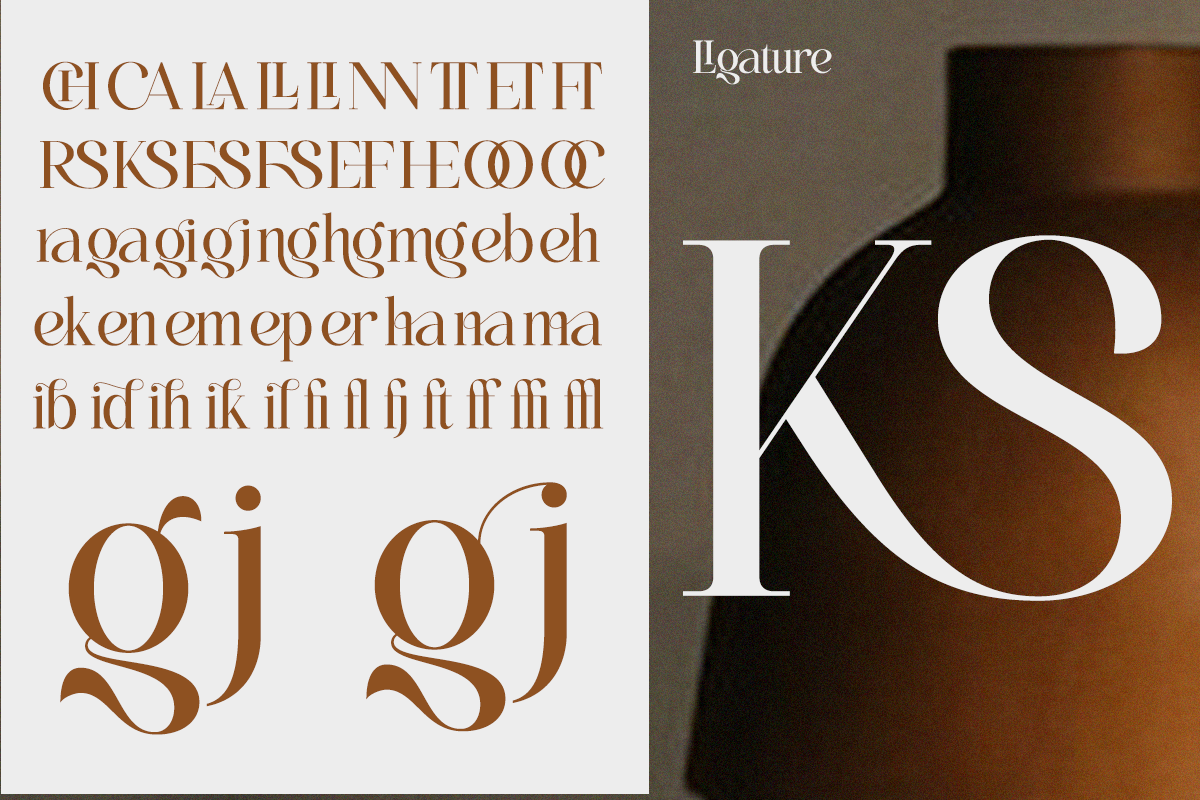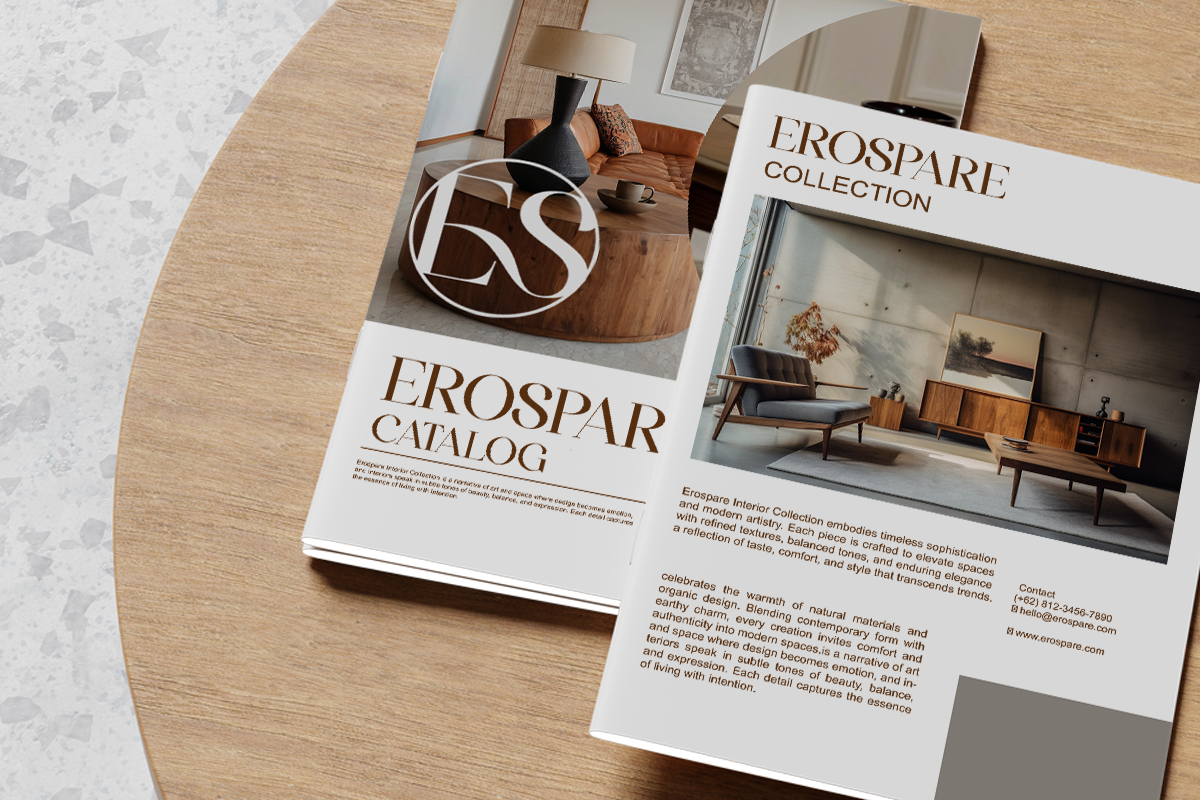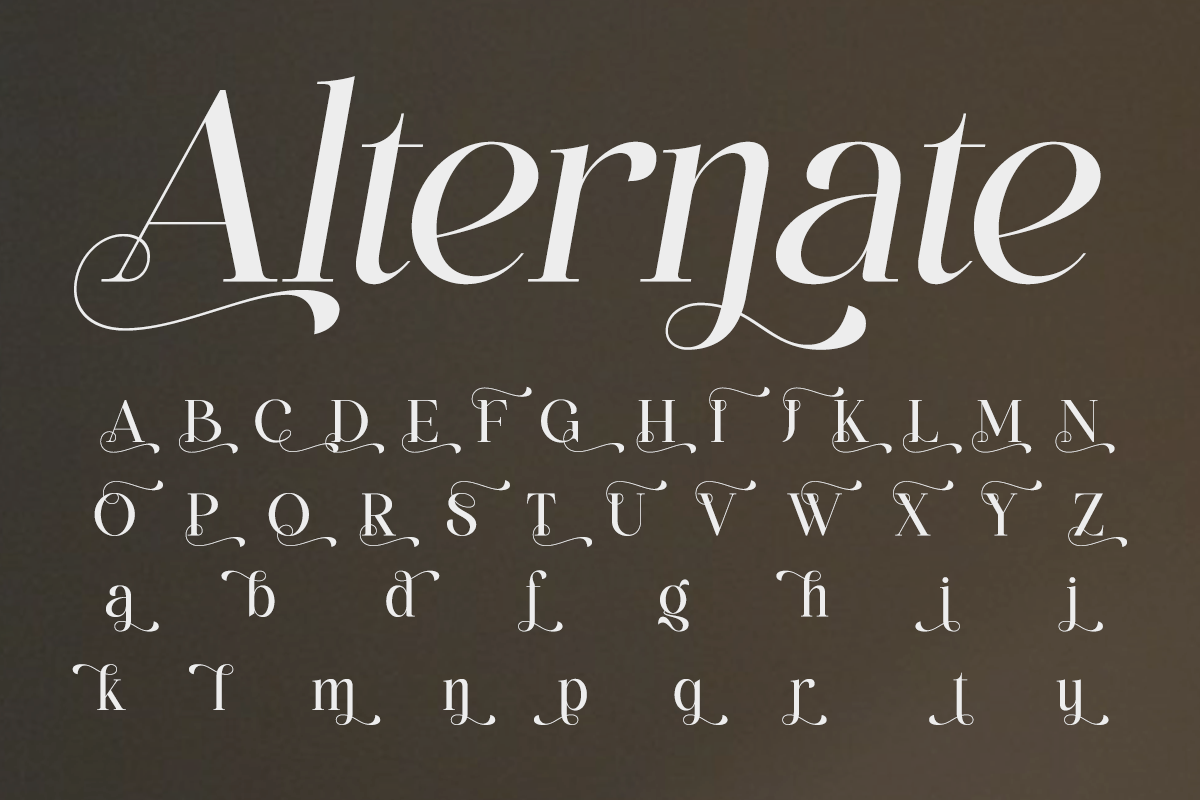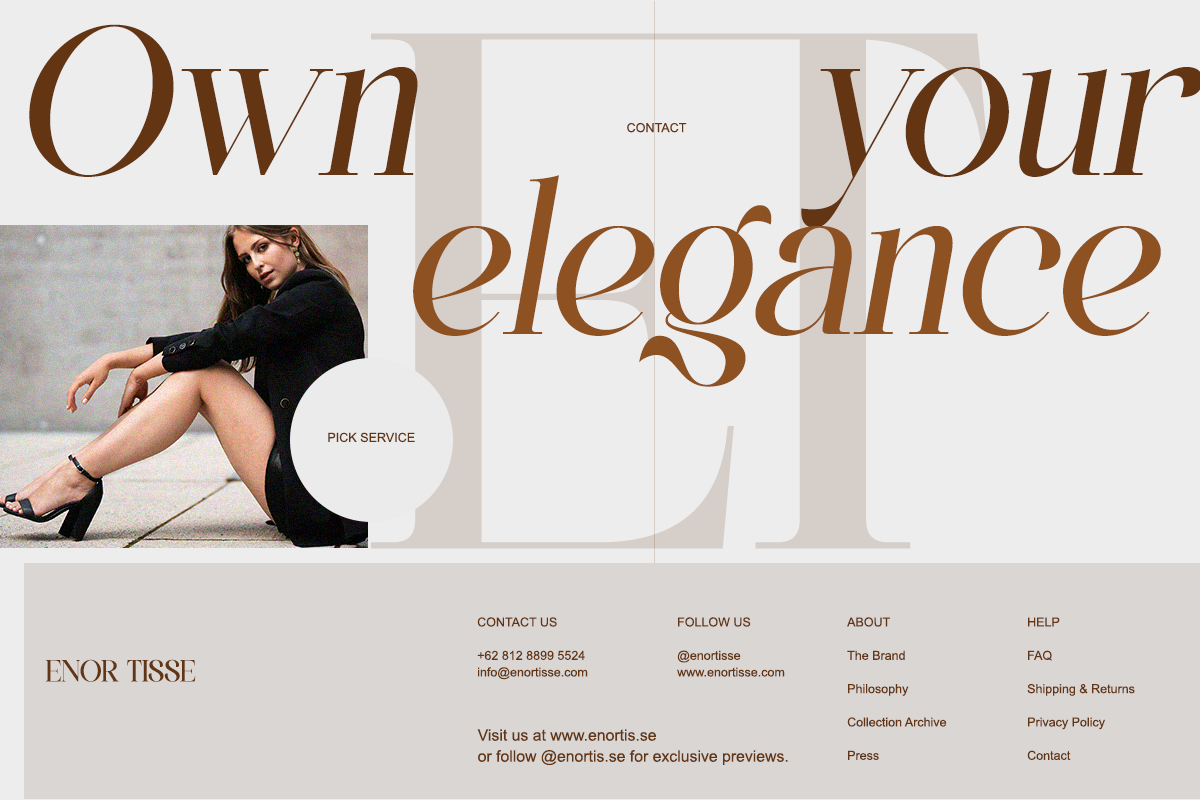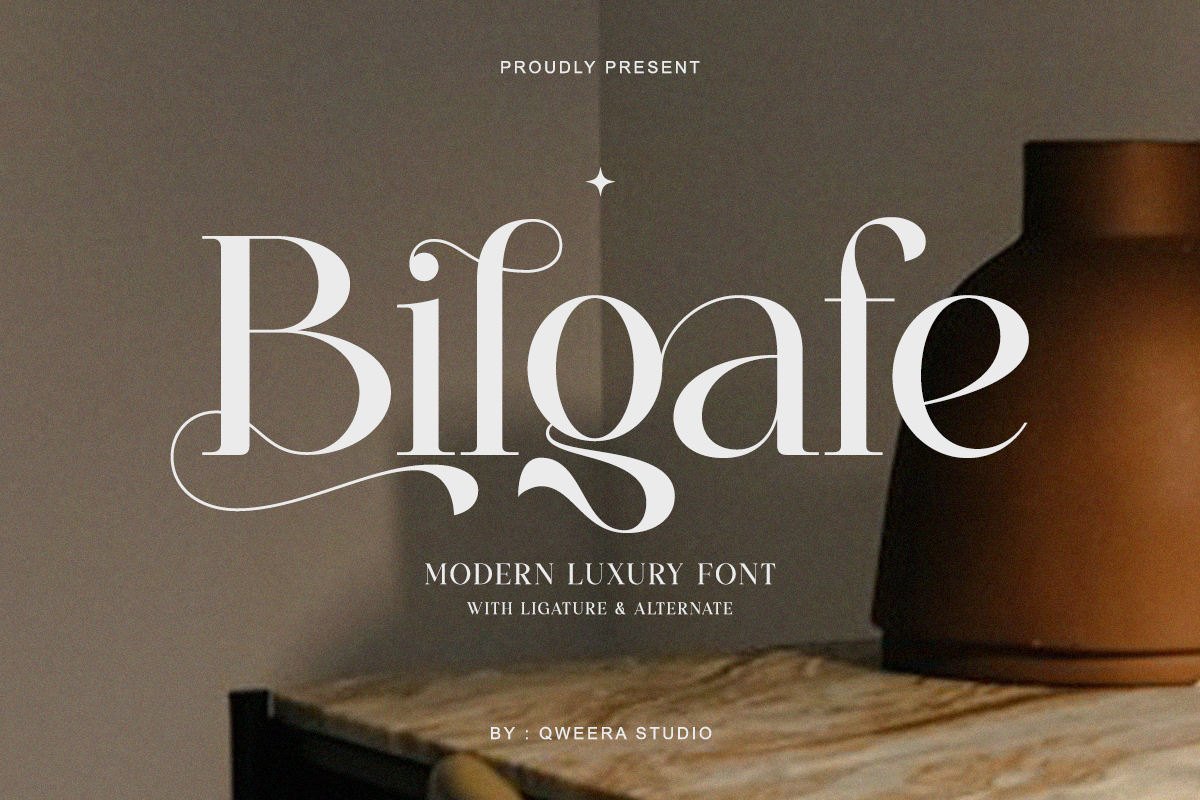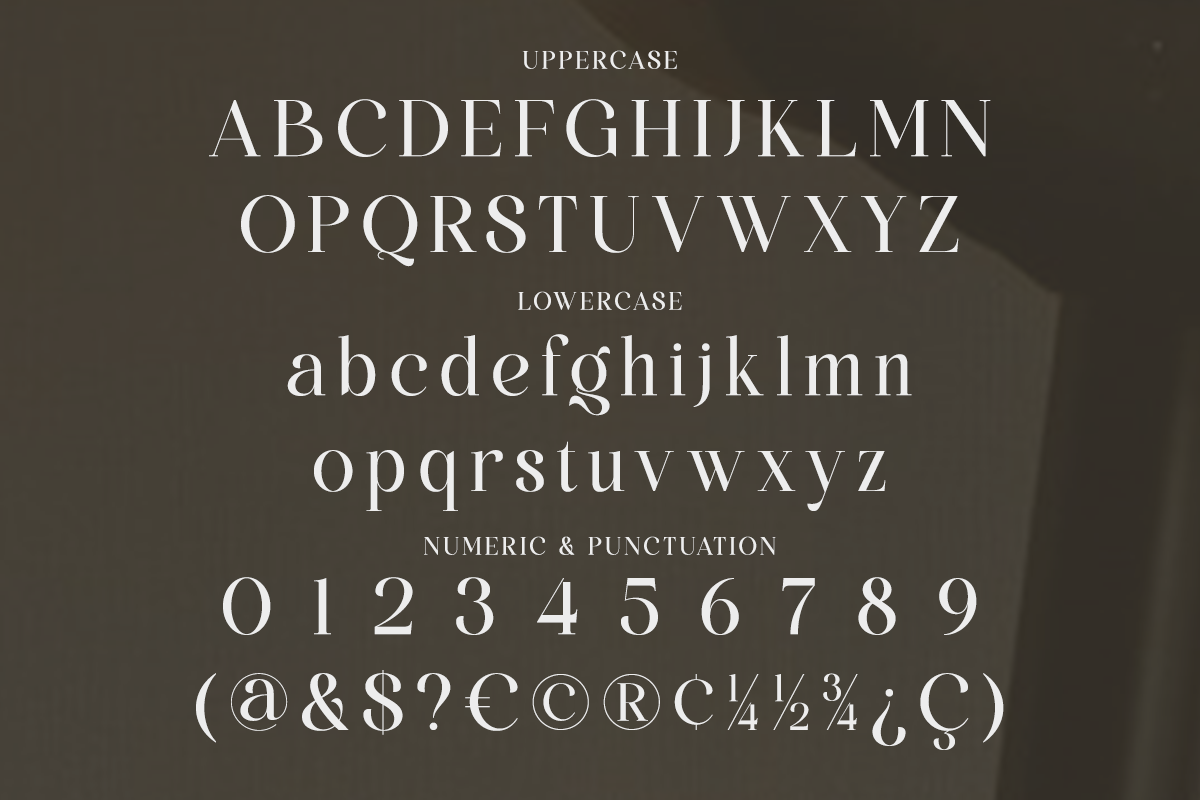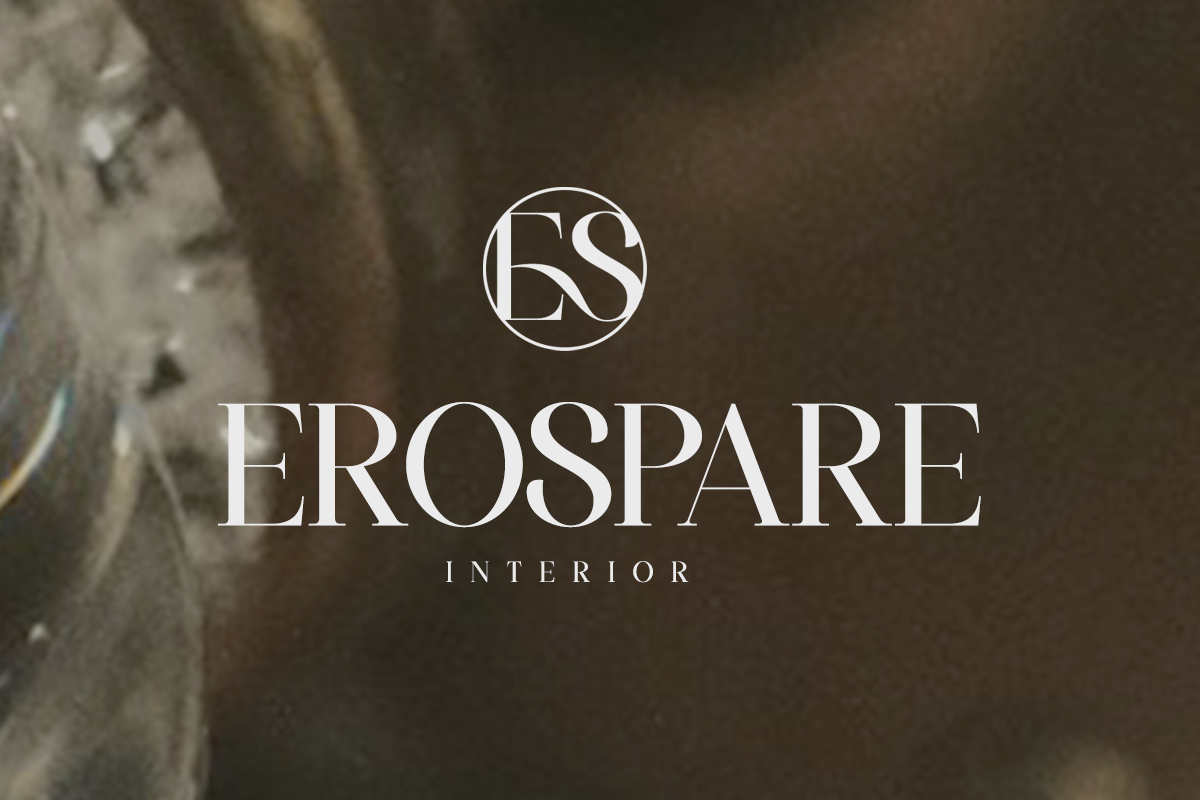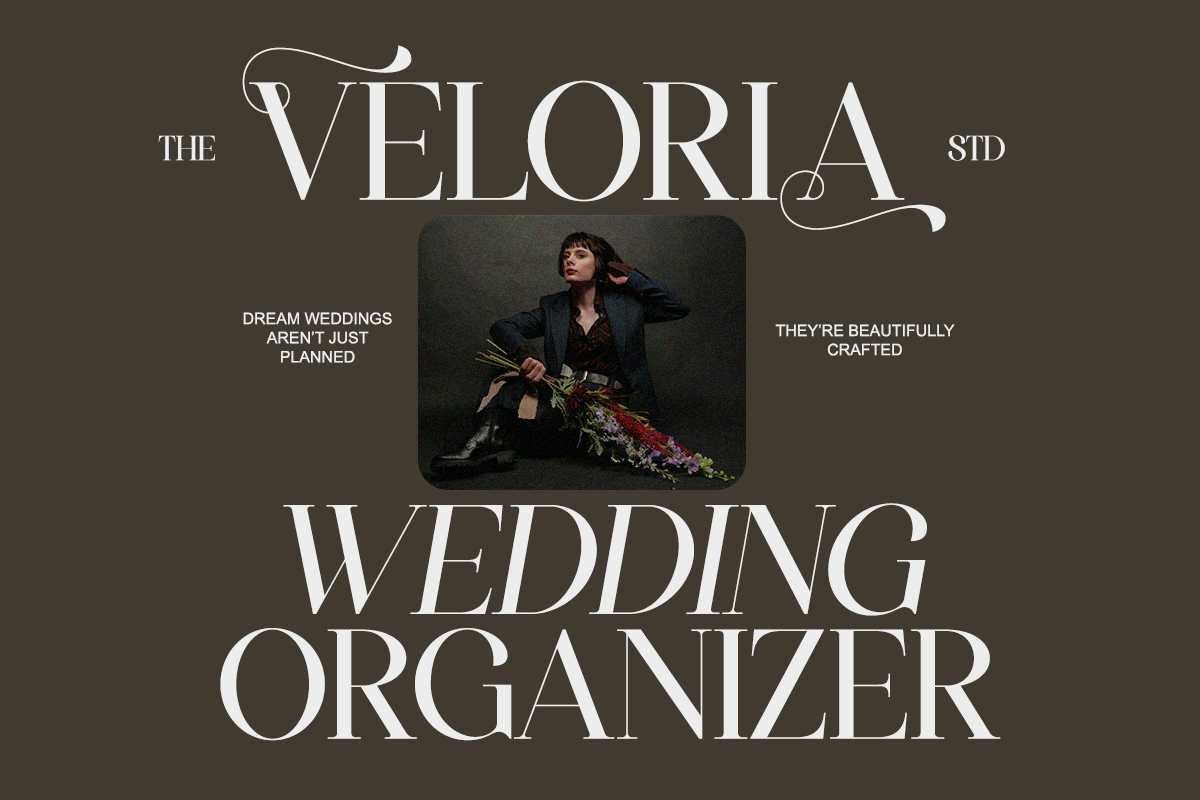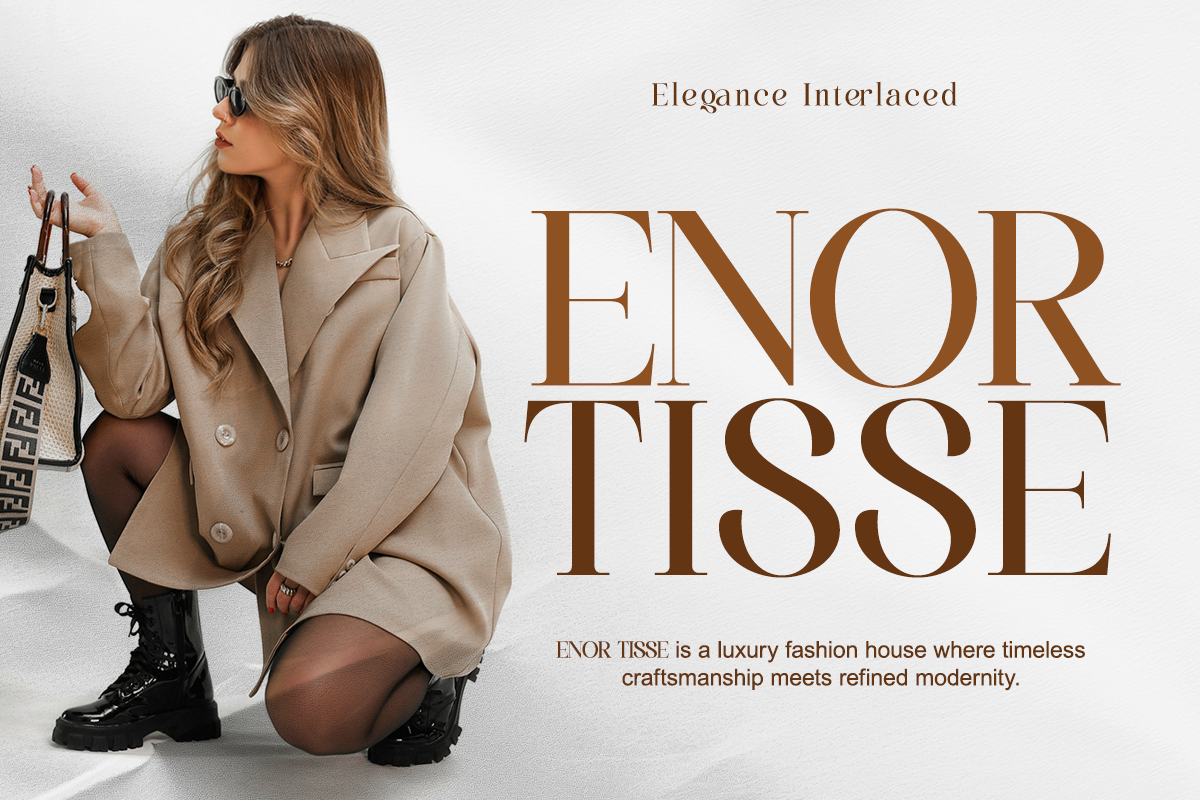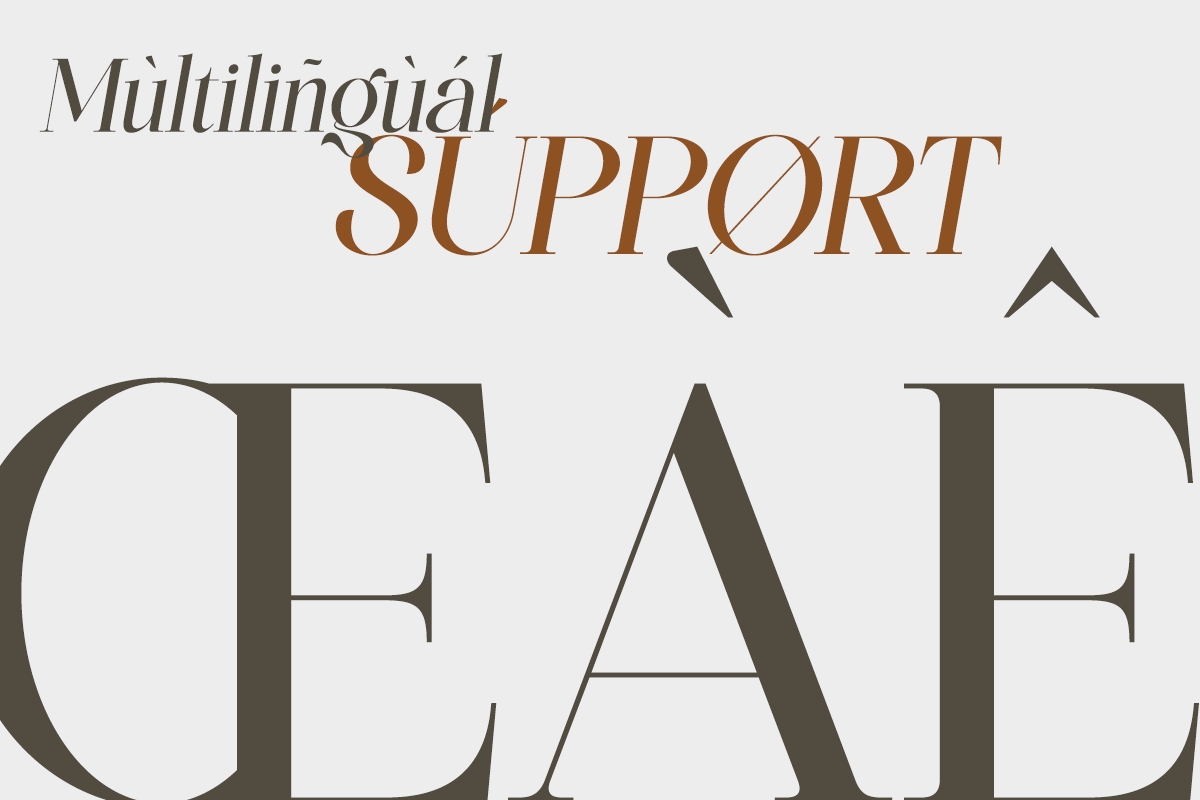
Bilgafe - Elegant Luxury Serif Font
Introducing Bilgafe, a modern serif font created for elegance-driven design. With its smooth curves, stylish ligatures, and balanced contrast, Bilgafe brings a calm yet premium presence to every composition.
Designed to feel luxurious without being loud, Bilgafe is perfect for editorials, branding, and sophisticated visual identities.
- Regular & Italic
- Alternates and ligatures
- Elegant serif contrast
Perfect For Luxury branding, interior design brands, fashion labels, magazines, editorial headlines, and premium lifestyle visuals.